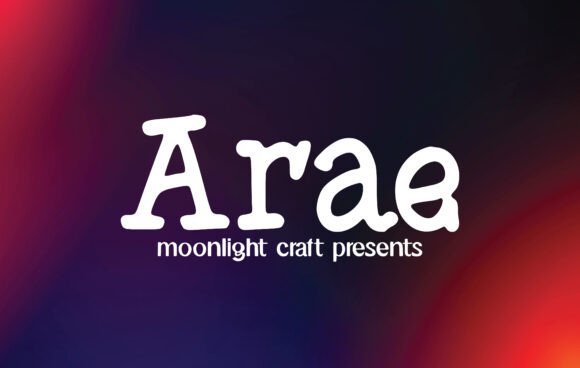
There’s something magical about the moment when a brilliant idea strikes. The spark of creativity ignites, and you can’t wait to bring your vision to life. For designers, this moment is a constant pursuit – to create something truly remarkable that leaves a lasting impression.
That’s where the Arae Font comes in – a beautiful, handwritten font designed to elevate your creative ideas to new heights. Whether you’re crafting eye-catching logos, branding, or quotes, Arae Font is the perfect choice to make your mark. Its unique, elegant style adds a touch of sophistication and whimsy, setting your work apart from the rest.
As a designer, you know the importance of selecting the right font to convey your message. With Arae Font, you’ll find a versatile tool that’s both visually stunning and highly versatile – making it an invaluable addition to your design toolkit.
Arae Font Key Features
- Unique Characteristics: The Arae Font features a unique, handwritten style with a mix of modern and vintage elements, making it perfect for creative projects and designs.
- Font Styles: The font comes in multiple styles, including Regular, Italic, Bold, and Bold Italic, providing users with a range of options for their designs.
- Language Support: The font supports a wide range of languages, including Latin, Cyrillic, and Greek scripts, making it a versatile choice for international designs.
Arae Font Review
I’ve had the chance to work with Arae Font, and I’m sharing my honest thoughts on its design.
- Unique letterforms: Arae Font has some really interesting letterforms that can add a touch of personality to your designs.
- Flexibility: The font comes in multiple weights and styles, making it a great choice for a variety of design projects.
- Clean lines: Arae Font has clean lines and a minimalist feel that makes it easy to read.
- Legibility at small sizes: While Arae Font is easy to read at larger sizes, it can become a bit difficult to read at smaller sizes.
- Lack of italics: There’s no italic version of the font, which can limit its use in certain design contexts.
- Not ideal for body text: Due to its unique letterforms and limited legibility at small sizes, Arae Font may not be the best choice for body text.
Arae Font is a great choice for projects where you want to add a touch of personality and uniqueness to your design. While it has some limitations, it’s still a solid option for headers, titles, and other design elements where you want to make a statement. With its clean lines and flexibility, Arae Font is definitely worth considering for your next design project.
Tips for Getting the Most Out of Arae Font
Use Arae Font for headings and titles to create a professional and modern look. Experiment with different font sizes and colors to create visual hierarchy. Combine Arae with other fonts to create a unique and creative design.
Arae Font is ideal for:
- Professional graphics and illustrations
- Social media graphics and posters
- Presentations and business proposals
- Educational materials and reports
Alternatives to Arae Font for Designers
Montserrat is a sans-serif font designed by Julieta Ulanovsky. It is a versatile and modern font suitable for a wide range of applications, including logos, headings, and body text. Montserrat is similar to Arae Font in its clean and minimalist aesthetic, but it has a more geometric and urban feel.
Open Sans is a sans-serif font designed by Steve Matteson. It is a highly legible font that is suitable for digital applications, including websites, apps, and documents. Open Sans is more neutral and subtle compared to Arae Font, making it a good choice for situations where a clean and simple font is desired.